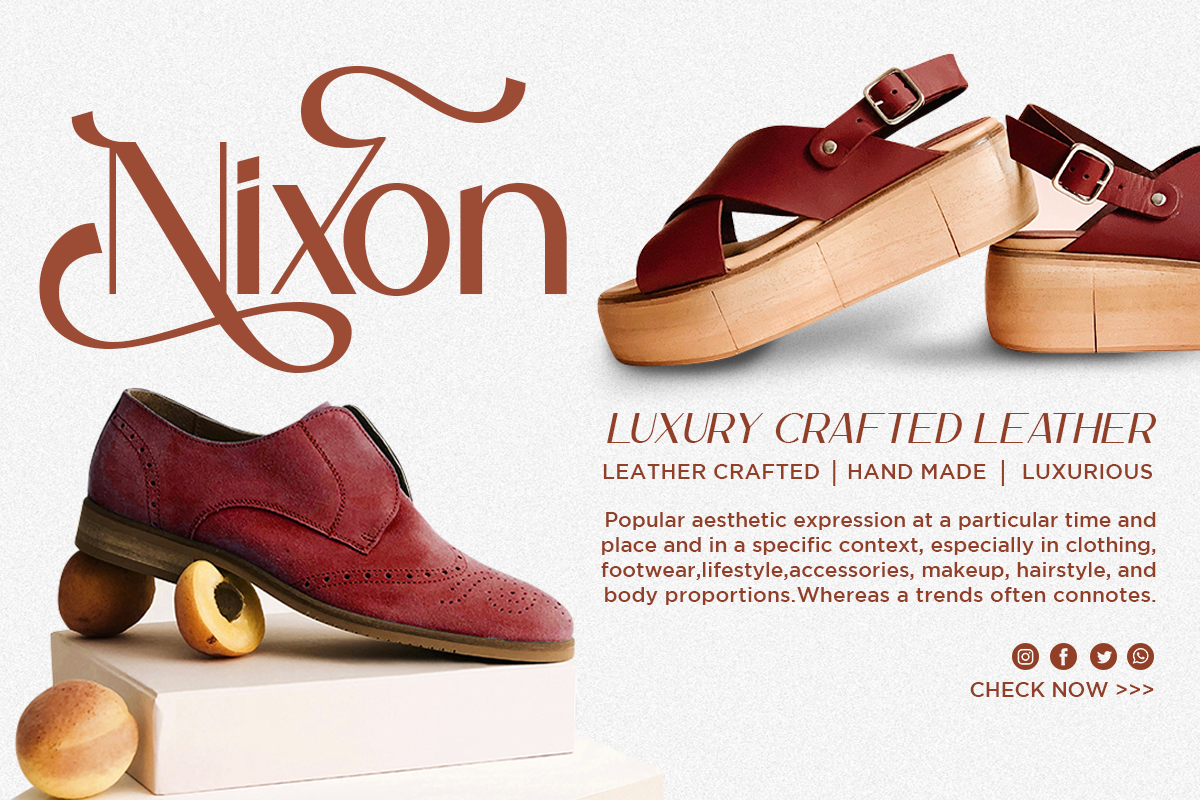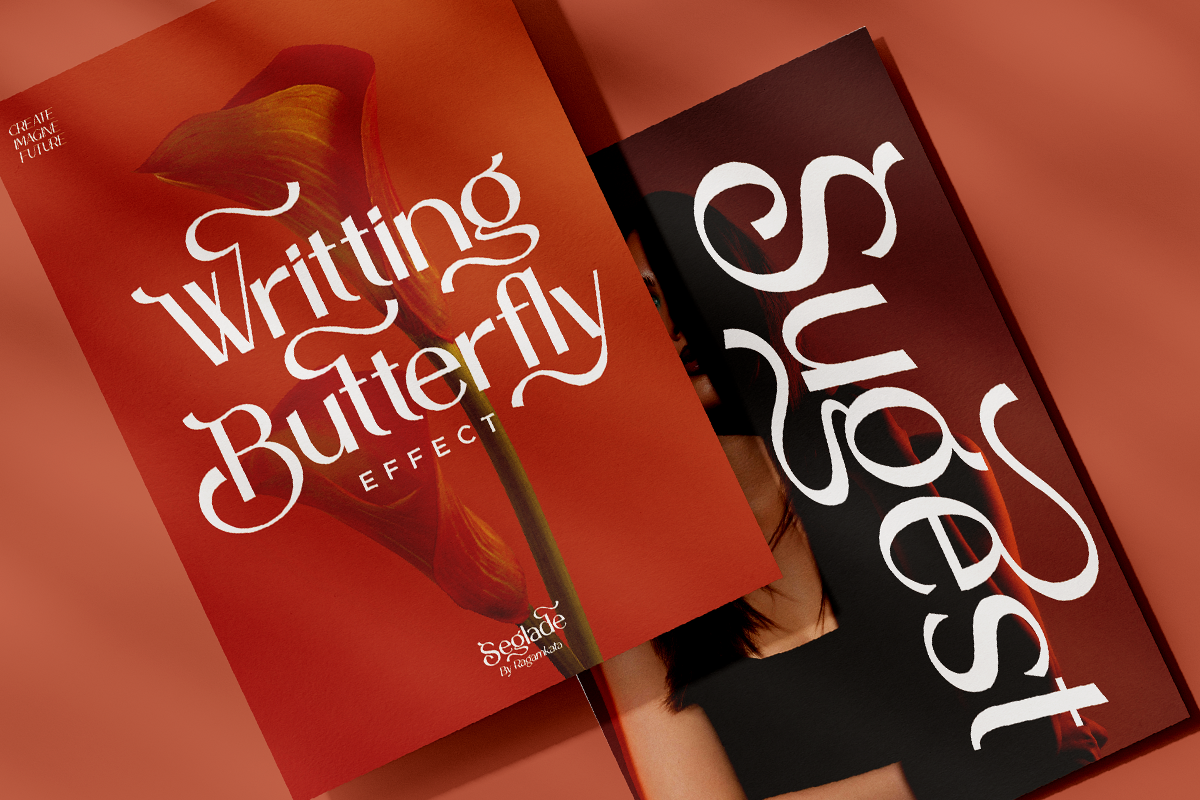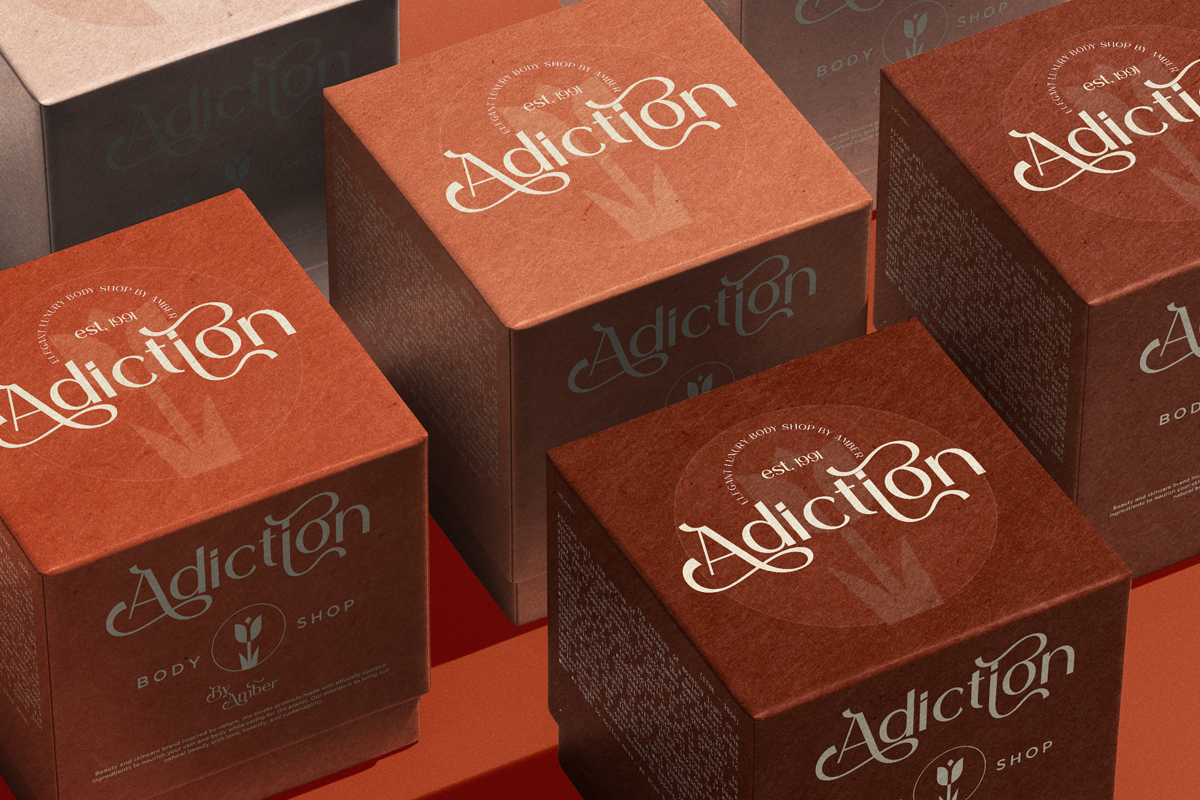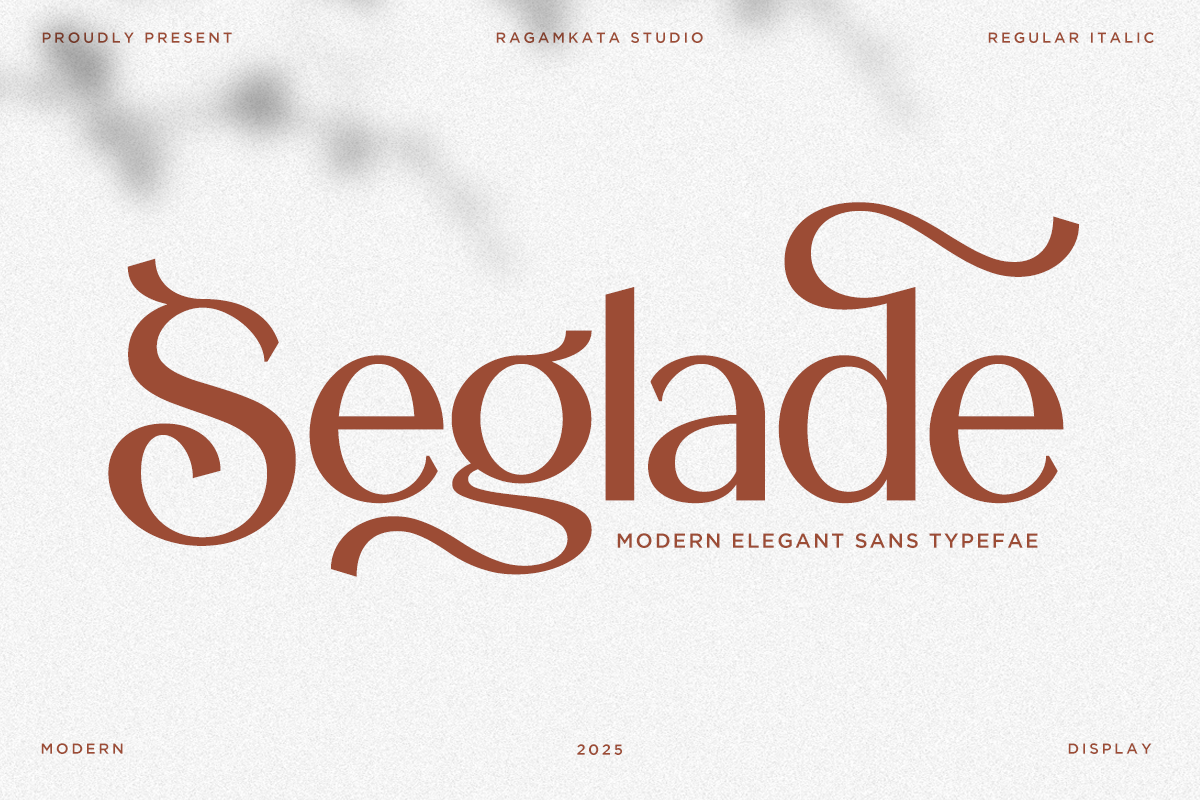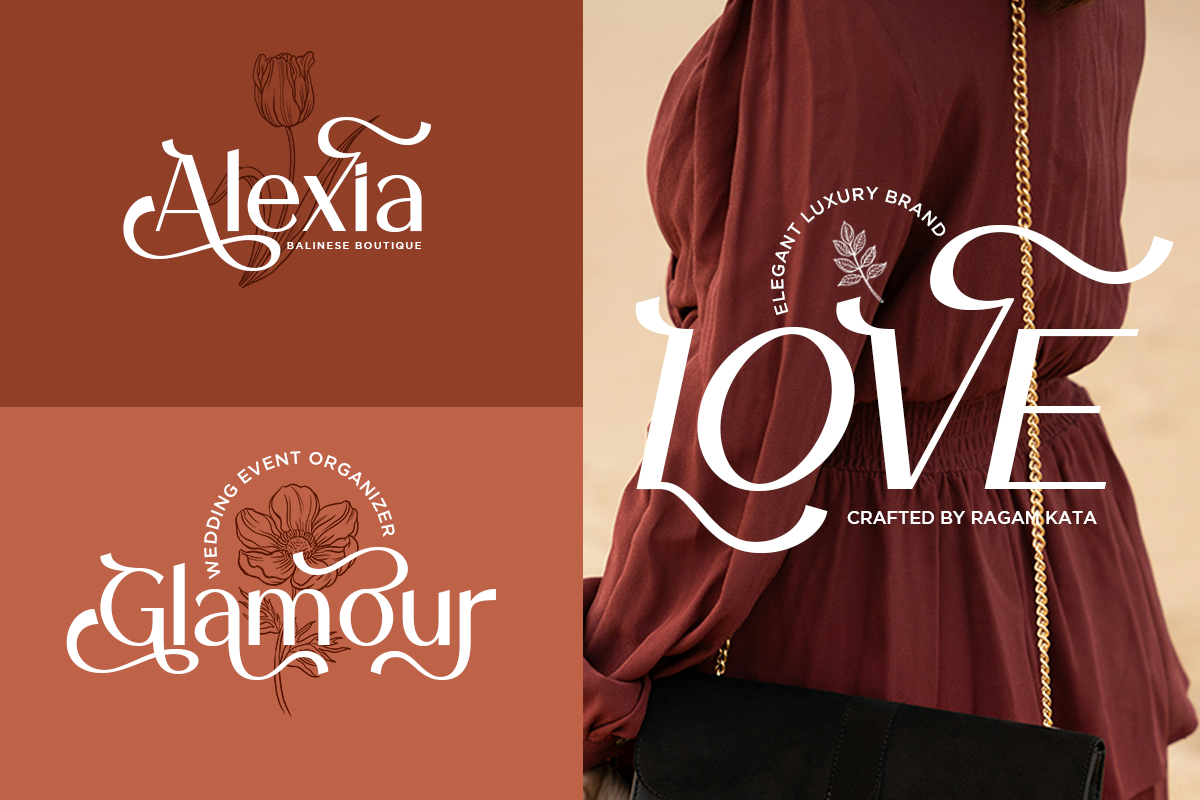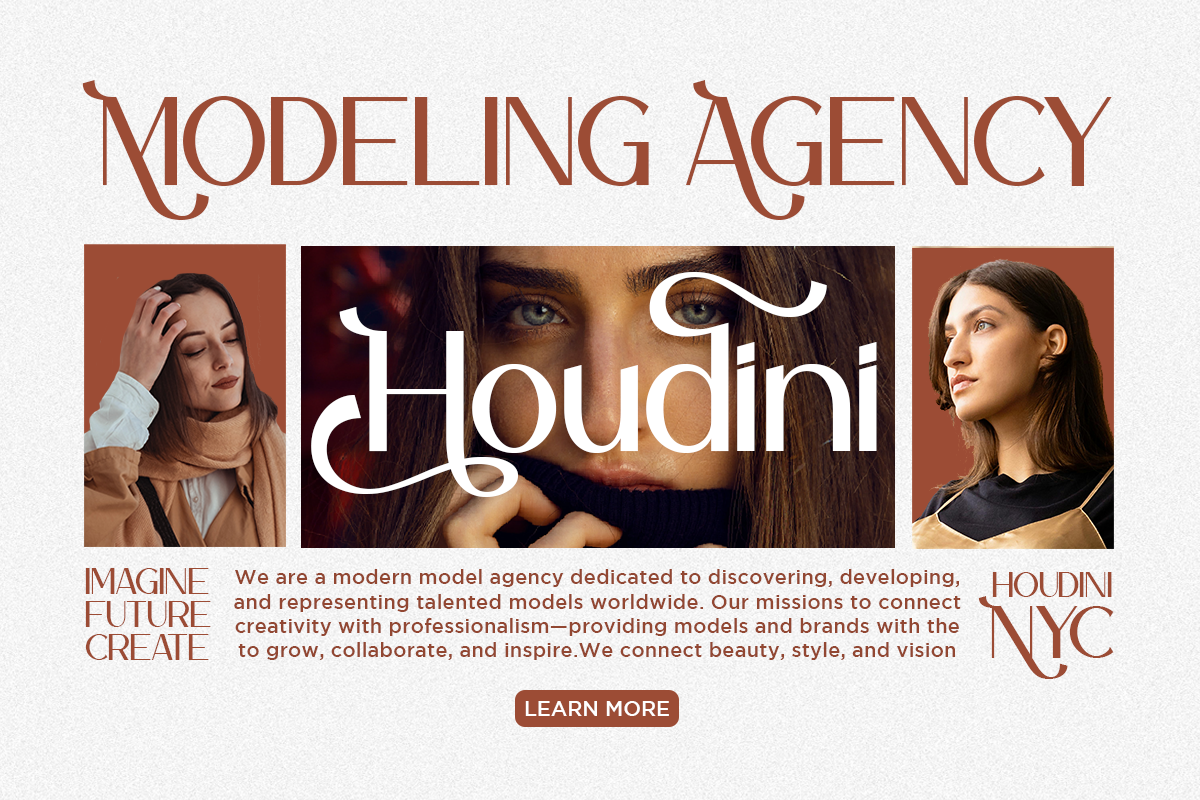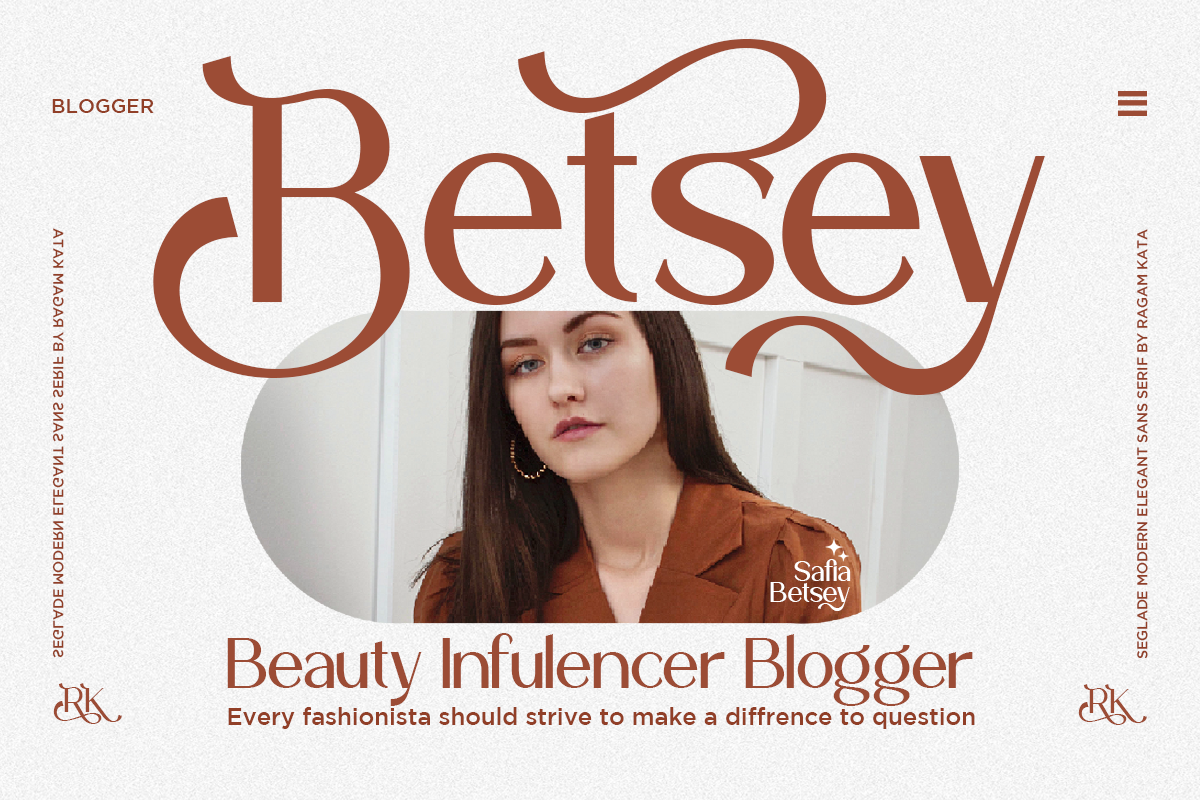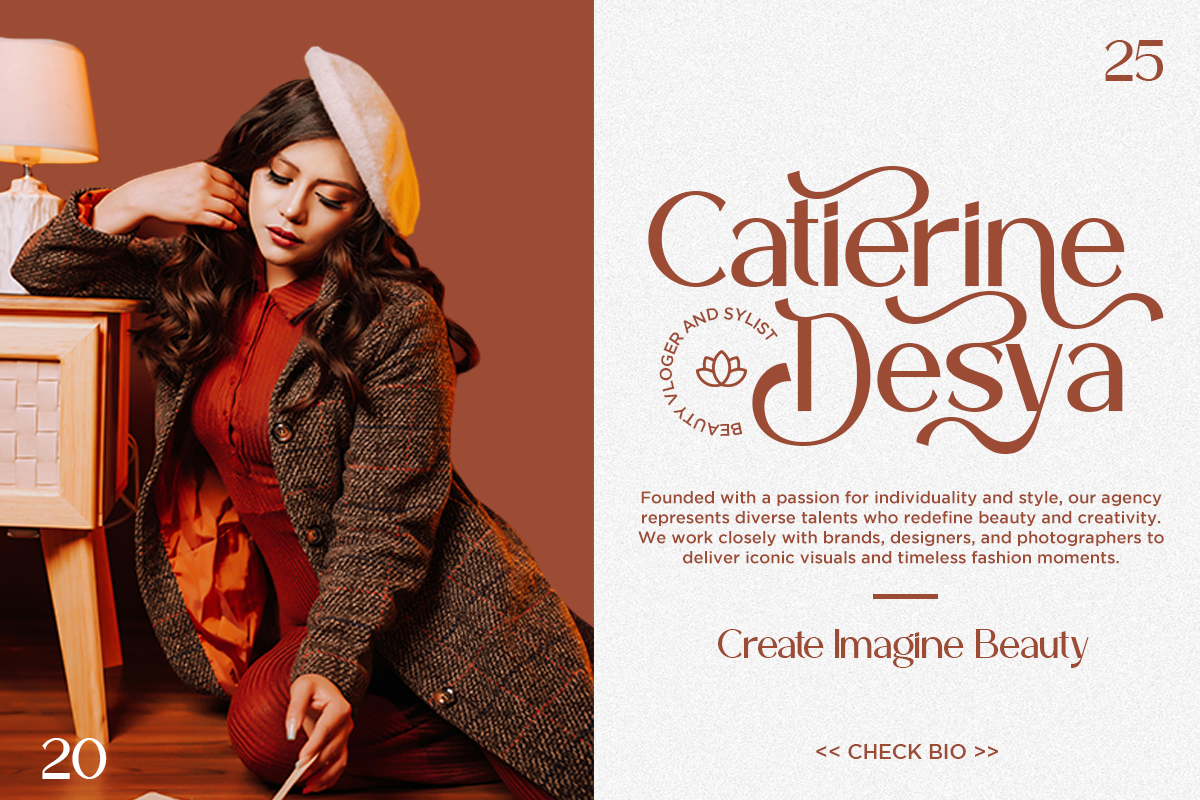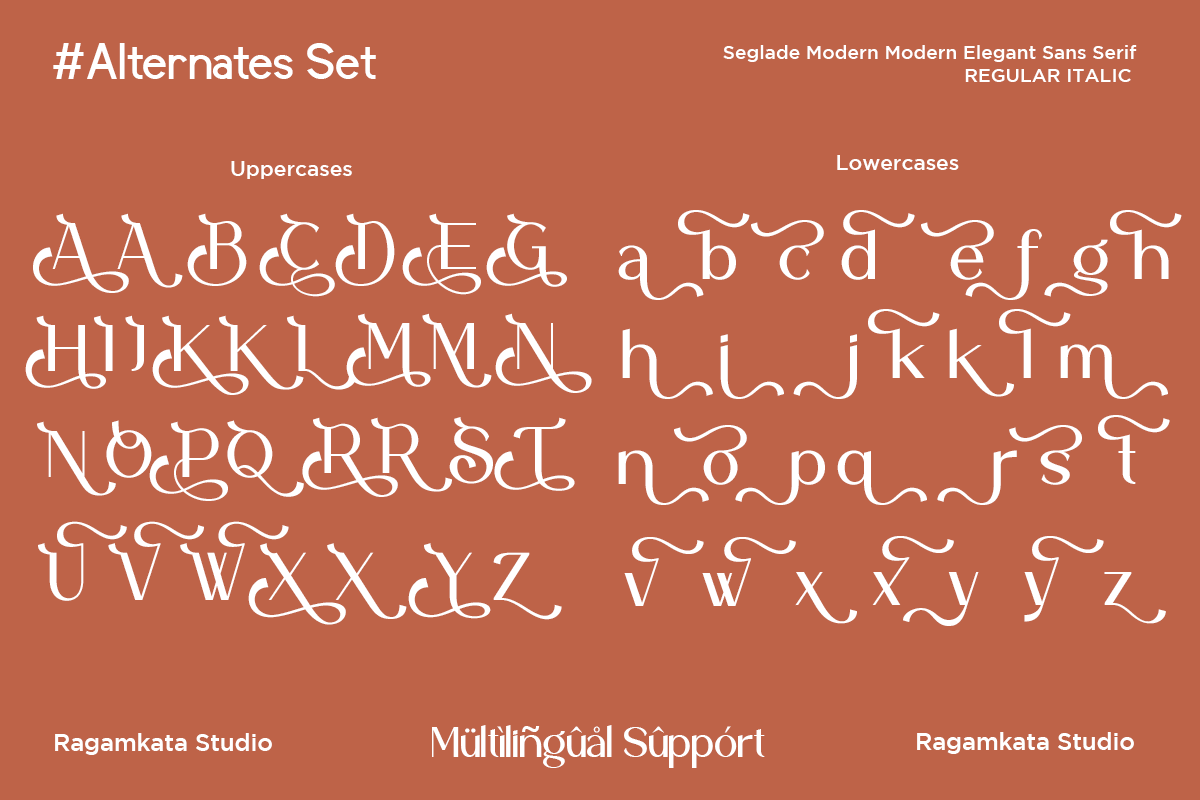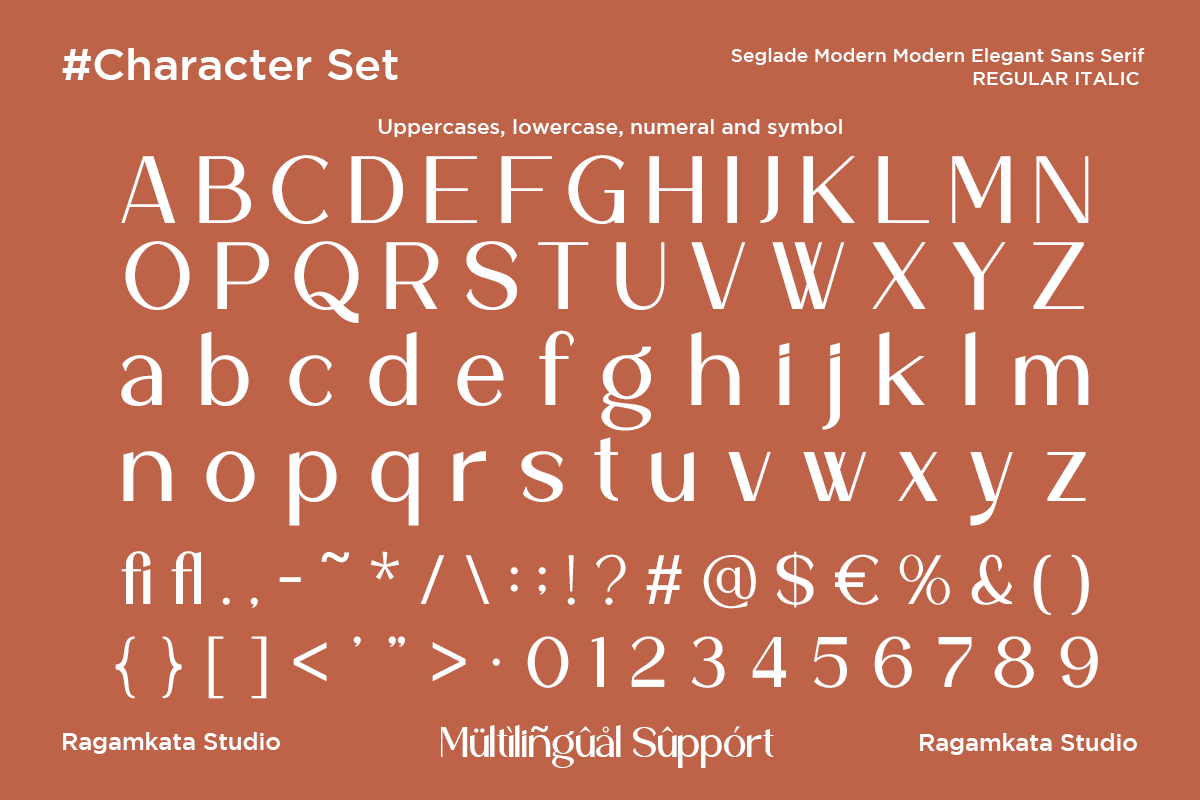
Seglade - Modern Elegant Font
Seglade is a modern elegant sans typeface that blends sophistication with expressive curves. Designed for high-end branding, editorial layouts, fashion logos, and luxury packaging, Seglade offers both Regular and Italic styles for versatile design needs. Its refined swashes and contemporary letterforms make it perfect for designers seeking timeless elegance and modern flair.
- Alternates Uppercase
- Alternates Lowewrcase